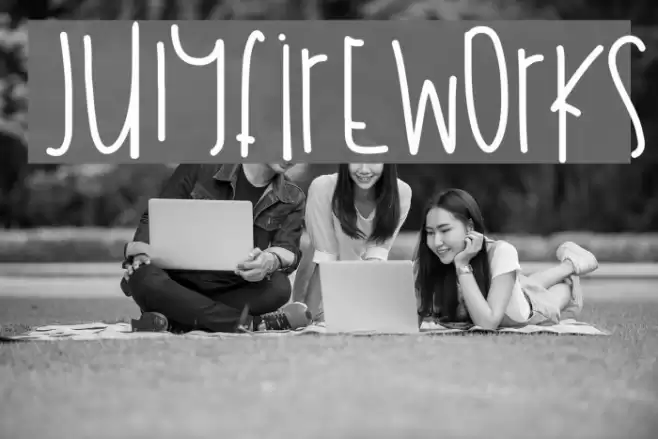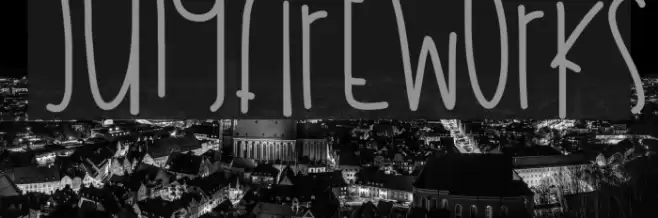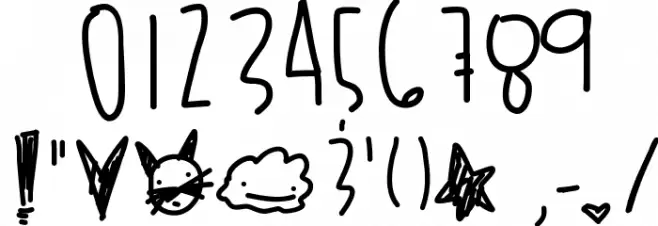
JulyFireworks Font
JulyFireworks Description
This font features a playful and whimsical style with tall, narrow characters that have a hand-drawn appearance. The letters are slightly irregular, adding to the casual and informal feel. The strokes are consistent in thickness, giving it a uniform look despite the quirky design. The uppercase and lowercase letters maintain a similar height, contributing to its unique aesthetic. Numbers and special characters are included, each maintaining the same playful style. This font is ideal for projects that require a fun and approachable tone.
A playful, hand-drawn font with tall, narrow characters and a whimsical style from Handwritten fonts.
- Proposed Projects: Ideal for children's books, playful branding, greeting cards, and casual invitations.
- Overall Style: Whimsical
- Use Case: Headlines, Logos, Informal Text